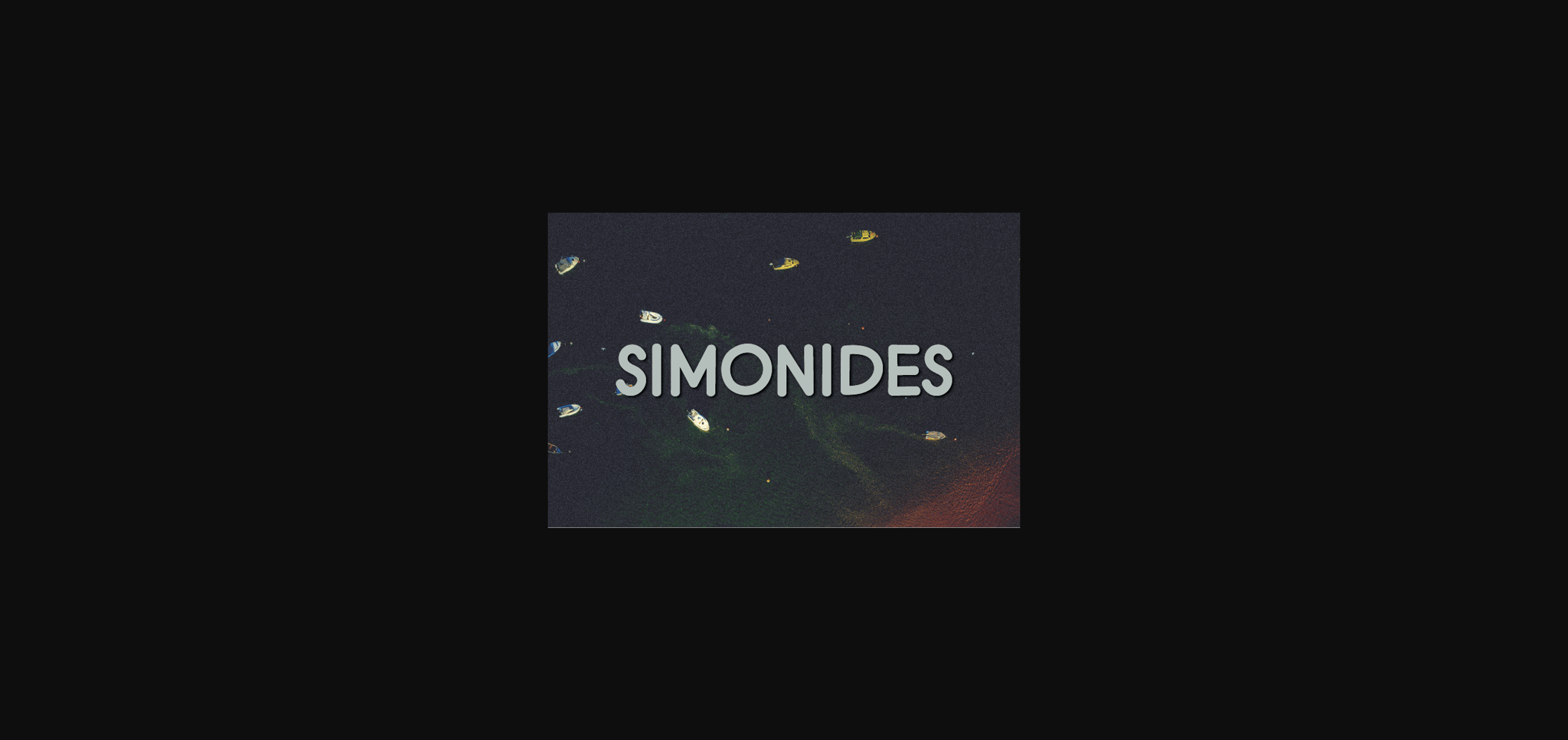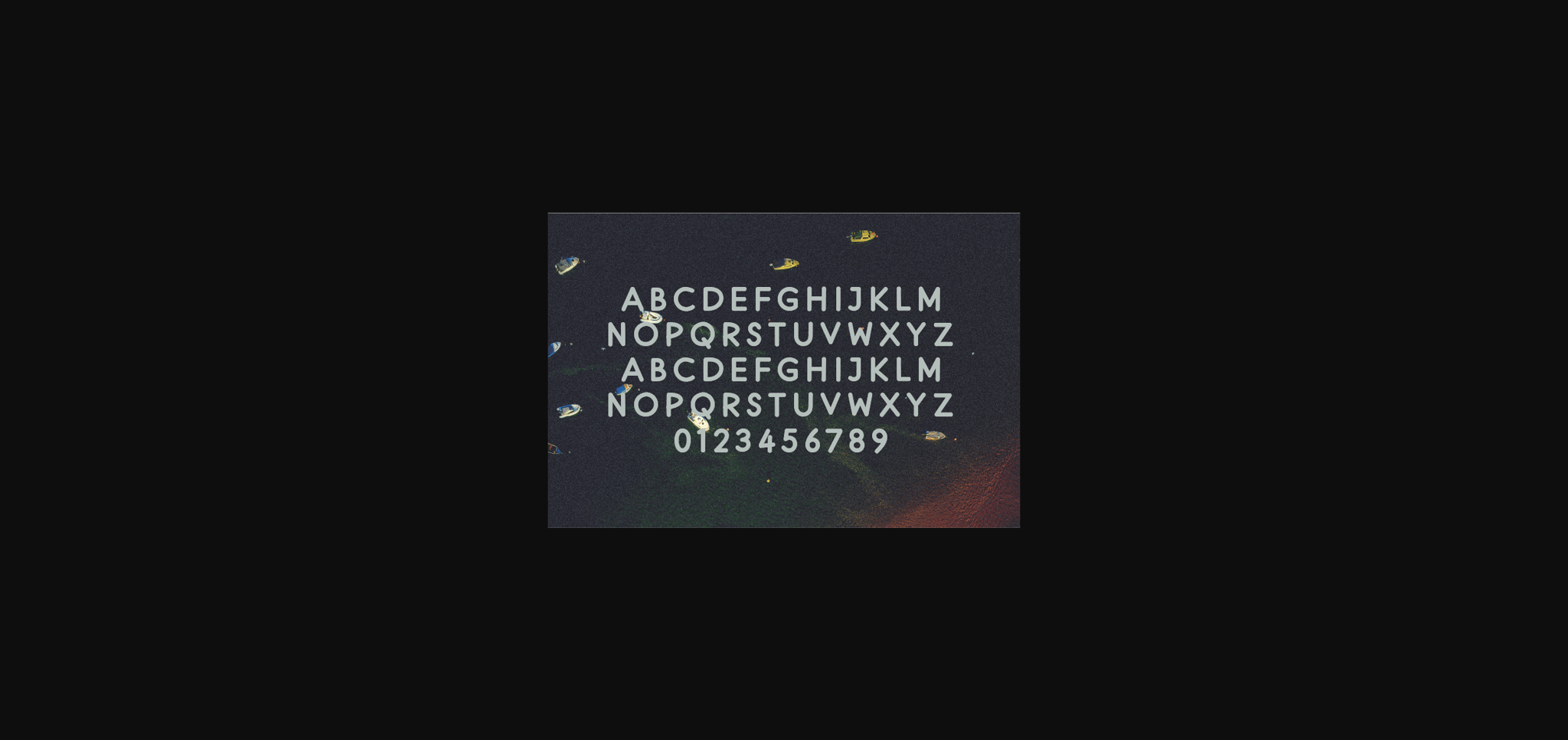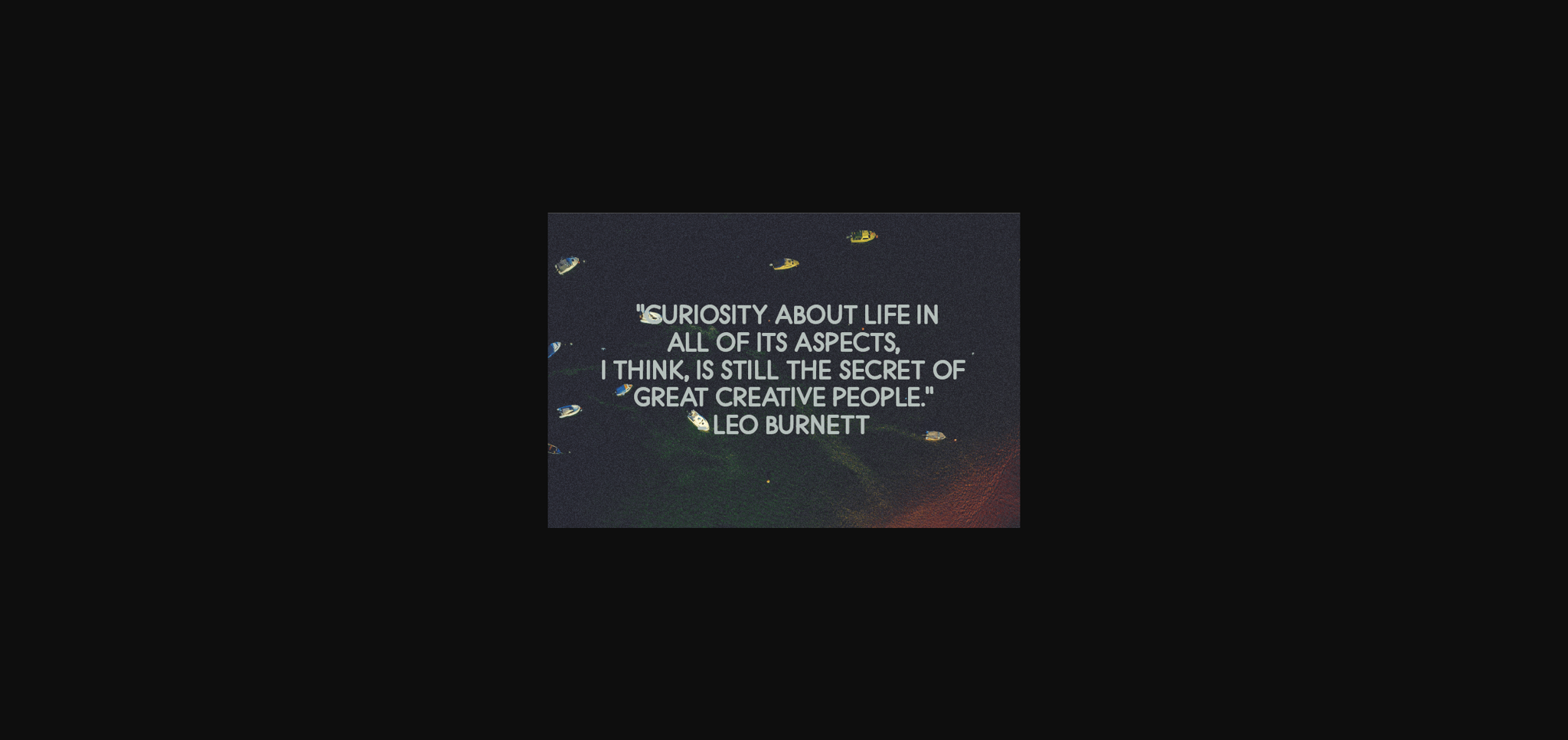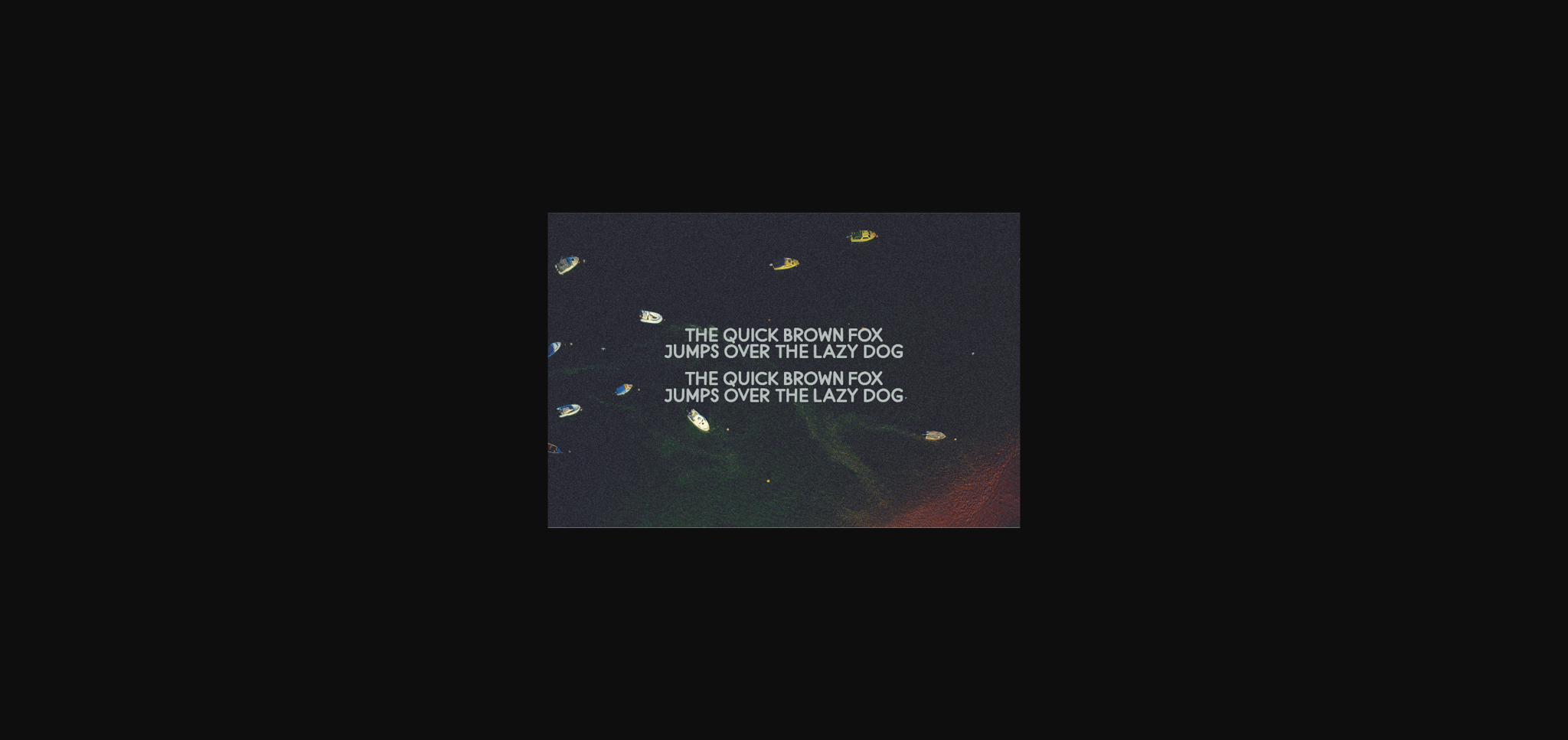
Simonides Font
About Simonides Font
Simonides is a natural sans serif font made without changing a single node in each character’s indentation- this makes this font very interesting and unique. Perfect for quotes, notes, tees, and any product design.